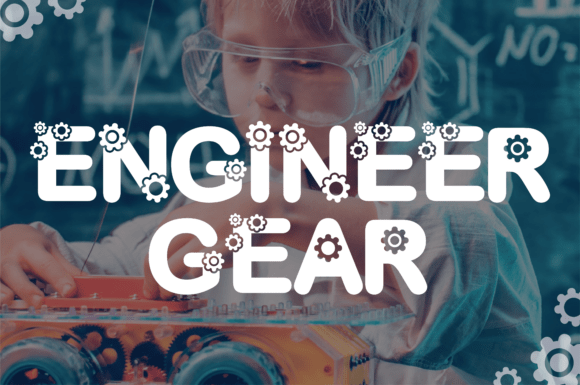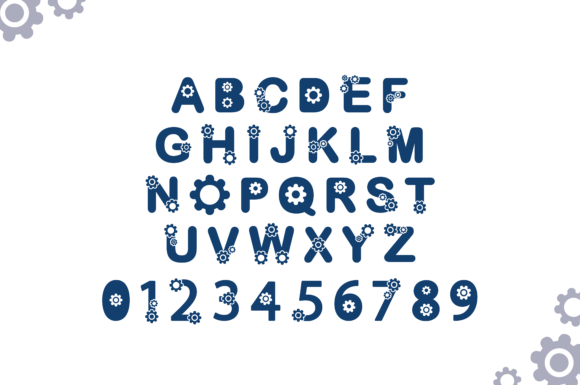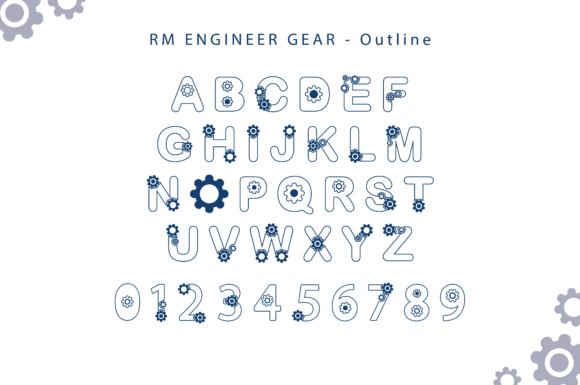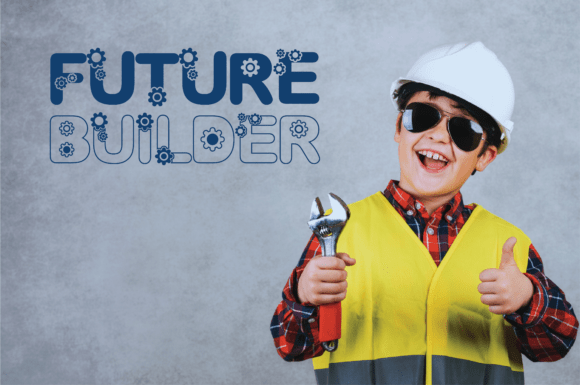
Engineer Gear Font
About the Engineer Gear Font
Introducing the Engineer Gear Font, a beautifully crafted typeface designed to elevate your creative projects. Get creative with Engineer Gear, a bold and playful font inspired by mechanics, gears, and engineering concepts. Featuring rounded, modern letters decorated with intricate gear details, this font is perfect for STEM projects, educational materials, robotics competitions, science fairs, and technology branding. Whether you’re designing for a classroom, a kids’ science club, or an innovative startup, Engineer Gear adds a fun and futuristic touch to your projects.
Engineer Gear’s playful boldness makes it ideal for headlines, logos, and short-form text in projects requiring a fun, tech-focused aesthetic. It excels in branding for startups, educational initiatives, and children’s products related to STEM fields. However, its intricate details reduce readability in body text or long paragraphs, making it unsuitable for UI or large blocks of information.
Consider pairing Engineer Gear with a clean sans-serif like Open Sans for body copy to maintain visual interest while ensuring readability. For a more sophisticated feel, a geometric sans-serif such as Futura would create a striking contrast, highlighting Engineer Gear’s playful energy. Avoid pairing it with overly decorative or script fonts, which could clash with its mechanical character.
The font’s overall personality is best described as bold and friendly, with a futuristic yet approachable vibe. This makes it particularly well-suited for projects aimed at a younger audience or those promoting innovation and creativity within a technological context.
Engineer Gear Font Usage Examples
Engineer Gear Font Example